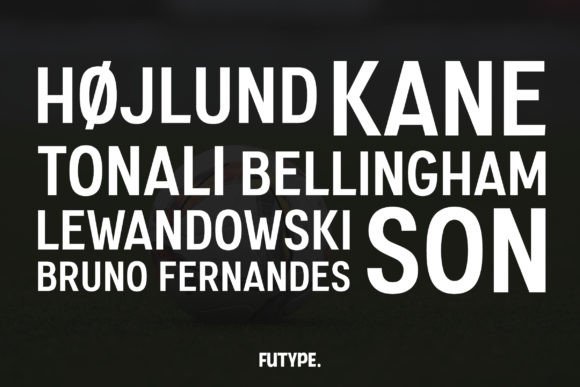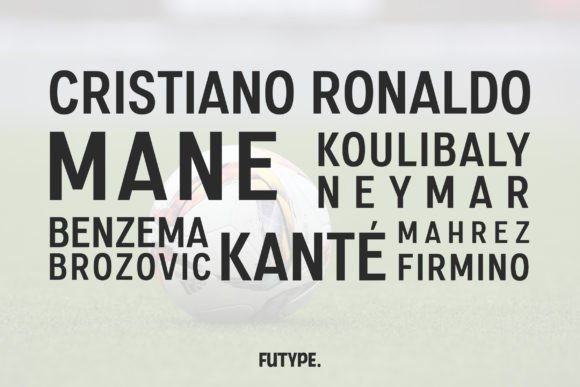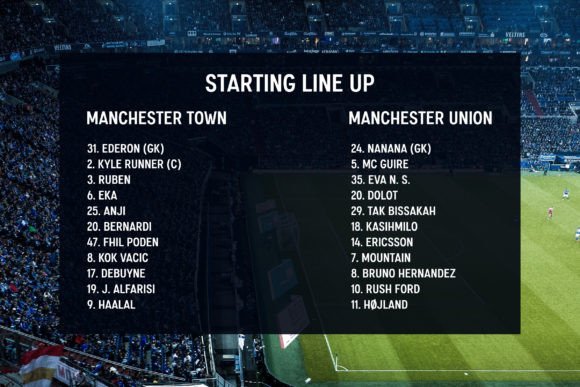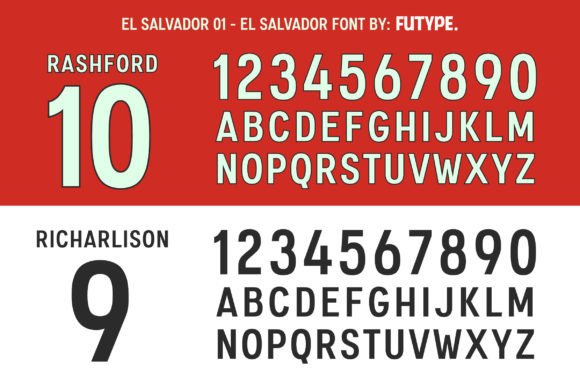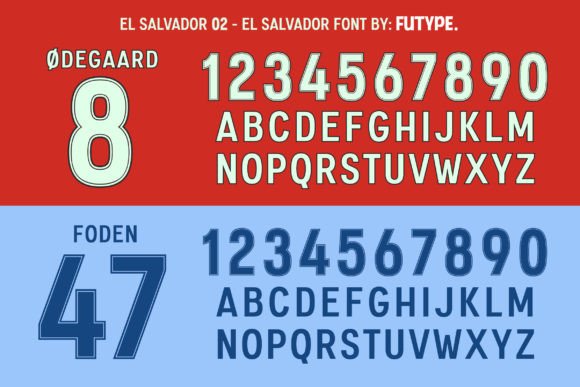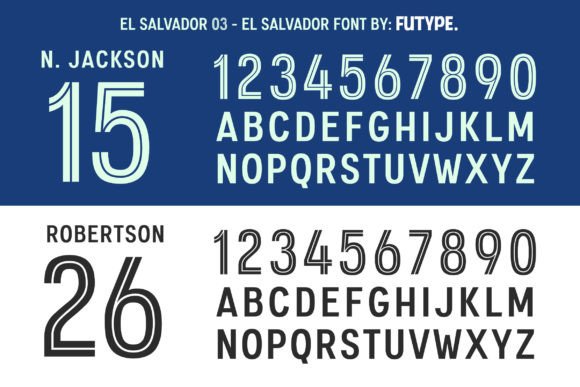
Introducing El Salvador Font: The Perfect Choice for Sports Jerseys and Beyond
In the world of sports, particularly football or soccer, jerseys and kits play a significant role in team identity and branding. A crucial element of these jerseys is the font used for player names, numbers, and team logos. For designers and crafters looking for a typeface that combines style, legibility, and versatility, the El Salvador Font is an excellent choice. Designed specifically for sports jerseys, this sans serif font has proven to be adaptable for various purposes, making it a valuable asset for any design project.
Origins and Design
The El Salvador Font was created with the primary goal of meeting the demands of sports apparel, particularly in football/soccer. The designers aimed to produce a typeface that was not only visually appealing but also highly legible, even from a distance. The result is a clean, modern sans serif font that ticks all the boxes for sports jerseys. Its straightforward and uncomplicated design ensures that it can be easily read and recognized, which is vital in the fast-paced environment of sports.
- Legibility: One of the standout features of the El Salvador Font is its exceptional legibility. The characters are designed to be clear and distinguishable, even at smaller sizes, making it perfect for jerseys where space is limited.
- Versatility: While initially created for sports jerseys, the El Salvador Font’s neutral design makes it suitable for a wide range of applications beyond sports. From team logos and branding to merchandise and apparel, this font can be seamlessly integrated into various design projects.
- Modern Aesthetic: The sans serif style of the El Salvador Font gives it a contemporary look that appeals to modern tastes. Its simplicity and clean lines make it an excellent choice for designers seeking a fresh and updated appearance for their designs.
Applications Beyond Sports
While the El Salvador Font was made with sports in mind, its versatility means it can be effectively used in numerous other contexts. Here are some examples:
- Branding and Logos: The clean and modern look of the El Salvador Font makes it an excellent choice for company logos, product labels, and brand names, especially for businesses looking for a professional yet approachable feel.
- Merchandise and Apparel: Beyond sports jerseys, this font can be used for designing t-shirts, hoodies, hats, and other apparel. Its legibility and style ensure that your message or logo stands out.
- Digital Media: In the digital realm, the El Salvador Font can be used in website design, social media graphics, and digital advertising. Its clear and readable design makes it effective for conveying information quickly and efficiently.
To make the most out of the El Salvador Font, consider the following tips:
- Experiment with Colors: While the font itself is versatile, pairing it with vibrant colors can enhance its appeal, especially for sports and merchandise designs.
- Pay Attention to Size: Although the El Salvador Font is designed to be legible at smaller sizes, ensure that it’s large enough to be easily read from a distance, particularly for jerseys and signage.
- Combine with Other Fonts: For added creativity, try combining the El Salvador Font with other typefaces. Its neutral design makes it a good base that can complement more decorative fonts.
The El Salvador Font is a valuable tool for designers and crafters seeking a typeface that combines style, versatility, and legibility. Originally designed for sports jerseys, its applications extend far beyond, making it a versatile asset for any design project. Whether you’re working on sports apparel, branding, or digital media, the El Salvador Font is an excellent choice that can help you achieve a modern and professional look.
With its clean design, adaptability, and wide range of applications, the El Salvador Font is set to become a go-to typeface for designers and crafters around the world. Its ability to convey a sense of modernity and professionalism makes it an ideal choice for anyone looking to create visually appealing and effective designs.